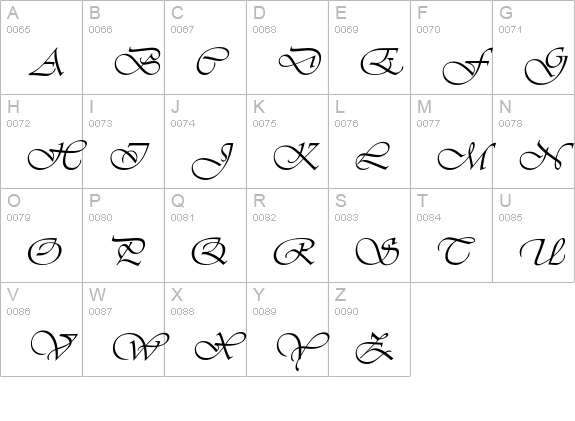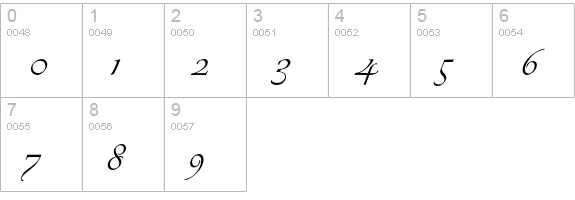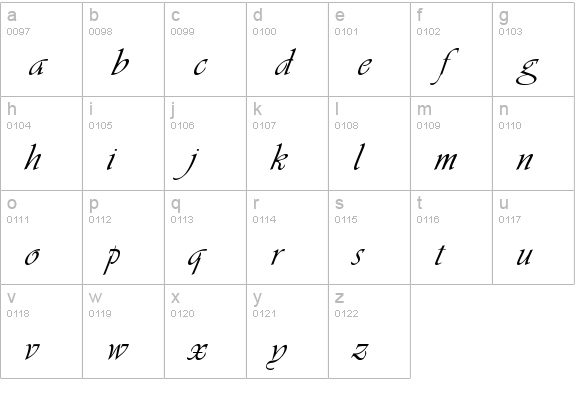
Vivaldi Std font is a stunningly elegant typeface that exudes sophistication and grace. With its intricate and flowing letterforms, this font is perfect for adding a touch of class to any design project. Whether you're creating wedding invitations, branding materials, or even just a personal blog, Vivaldi Std will elevate your content to new heights. What sets Vivaldi Std apart is not only its timeless beauty but also its versatility. This font seamlessly blends traditional and modern elements, making it suitable for a wide range of applications. From formal occasions to contemporary designs, Vivaldi Std effortlessly adapts to various styles and themes. And the best part? Vivaldi Std is completely free! You can easily download this exquisite font at FontsMarket.com, where it is readily available for your creative endeavors. Don't miss out on the opportunity to enhance your designs with this exceptional typeface. So, if you're looking for a font that combines elegance, versatility, and affordability, look no further than Vivaldi Std. Download it now from FontsMarket.com and let your creativity soar to new heights.